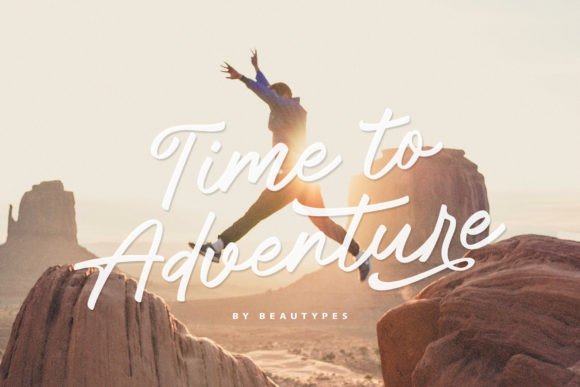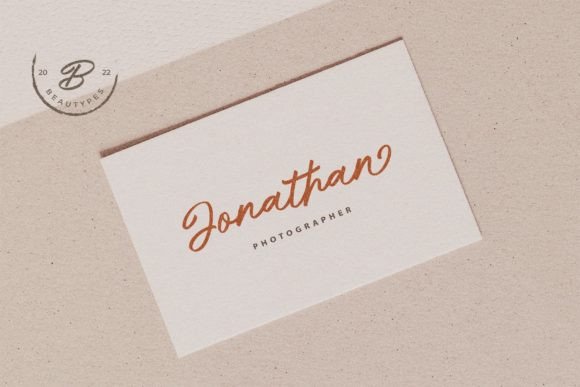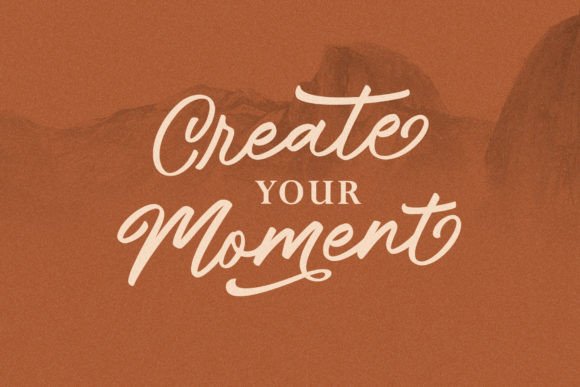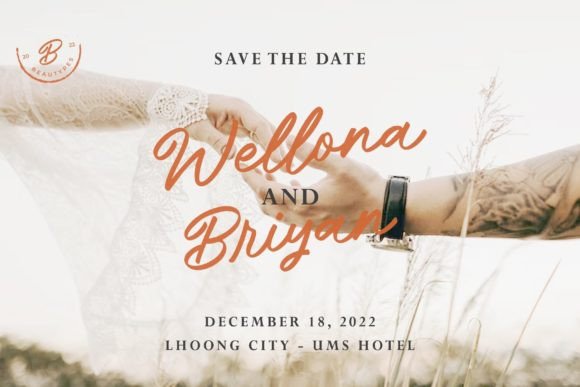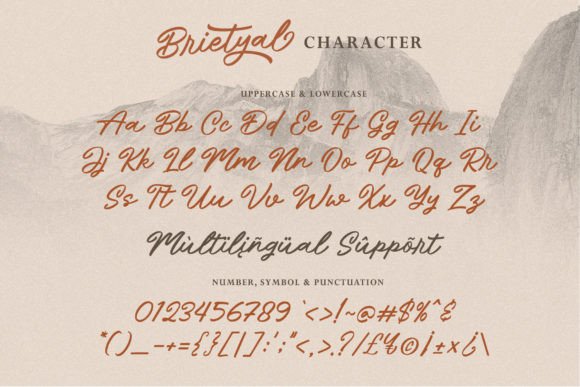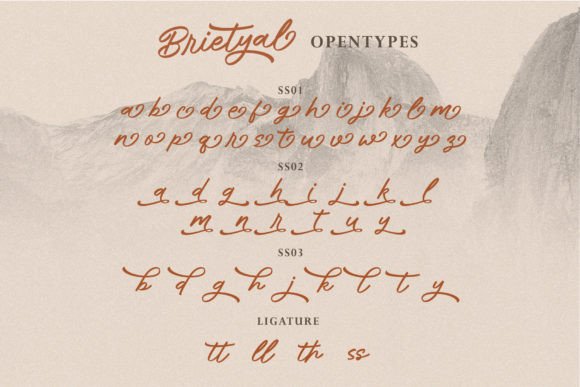
Brietyal Font: Elevate Your Designs with a Fresh and Unique Script Font
Are you tired of using the same old fonts in your designs? Look no further! Introducing Brietyal Font, a fresh and unique script font that’s perfect for adding a personal touch to your creations. With its amazing handwritten look, Brietyal Font is ideal for a wide range of design projects, from logos and stationery to posters, apparel, branding, advertisements, product packaging, product designs, labels, wedding invitations, and more!
What Makes Brietyal Font Special?
Brietyal Font stands out from the crowd with its distinctive handwritten look, which adds a touch of warmth and personality to any design. This font is carefully crafted to give your projects a unique and stylish feel that’s sure to capture attention. Whether you’re a designer, crafty DIY enthusiast, or small business owner, Brietyal Font is the perfect choice for anyone looking to elevate their designs.
One of the best things about Brietyal Font is its versatility. This font can be used for a wide range of design projects, including:
- Logos: Create a memorable brand identity with a custom logo that showcases your business’s personality.
- Stationery: Add a touch of elegance to your letters, invoices, and other business documents.
- Posters: Create eye-catching posters that grab attention and communicate your message effectively.
- Apparel: Design stylish and comfortable clothing that reflects your brand’s personality.
- Branding: Develop a consistent brand image across all your marketing materials.
- Advertisements: Create ads that stand out from the competition and drive results.
- Product Packaging: Make your products stand out on store shelves with unique and stylish packaging.
- Product Designs: Add a personal touch to your products, such as mugs, phone cases, and more.
- Labels: Create custom labels that add a touch of personality to your products.
- Wedding Invitations: Design beautiful and elegant wedding invitations that set the tone for your special day.
Brietyal Font is PUA (Private Use Area) encoded, which means that you can access all the glyphs and swashes with ease. This feature makes it easy to customize your designs and add a touch of personality to your projects. With PUA encoding, you can:
- Access a wide range of glyphs and swashes to add variety to your designs.
- Easily customize your font to fit your brand’s personality.
- Save time and effort by having all the tools you need at your fingertips.
Why Choose Brietyal Font?
With so many fonts to choose from, why should you choose Brietyal Font? Here are just a few reasons:
- Unique and stylish design that’s sure to capture attention.
- Versatile and can be used for a wide range of design projects.
- PUA encoded for easy access to glyphs and swashes.
- Perfect for designers, crafty DIY enthusiasts, and small business owners.
Get Ready to Elevate Your Designs!
Are you ready to take your designs to the next level? With Brietyal Font, you can add a touch of personality and style to your projects. Whether you’re a seasoned designer or just starting out, Brietyal Font is the perfect choice for anyone looking to create unique and eye-catching designs. So why wait? Download Brietyal Font today and start elevating your designs!
In conclusion, Brietyal Font is a fresh and unique script font that’s perfect for designers, crafty DIY enthusiasts, and small business owners. With its amazing handwritten look, versatility, and PUA encoding, Brietyal Font is the perfect choice for anyone looking to add a touch of personality and style to their designs. So why wait? Download Brietyal Font today and start creating stunning designs that capture attention and drive results!